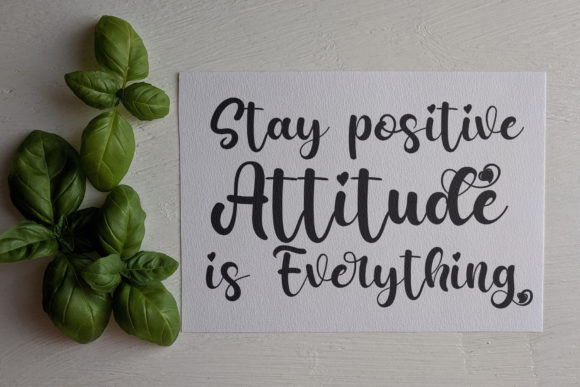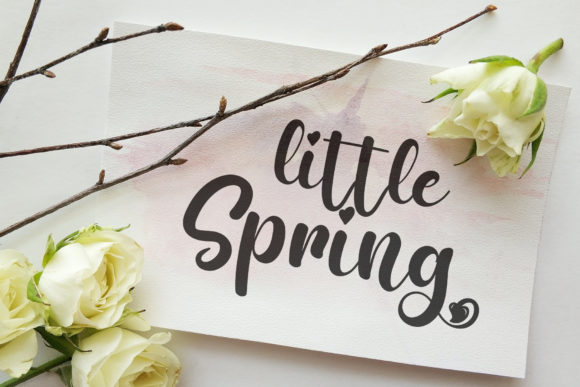
Easter Font
db-ku.com - Script & Handwritten -- Easter is a dazzling and detailed script font. Add this romantic and lovely looking font to each of your love letters, wedding invitations or favorite design ideas, and you will be astounded by the outcome. This Font is PUA encoded which means you can access all of the glyphs and swashes with ease!